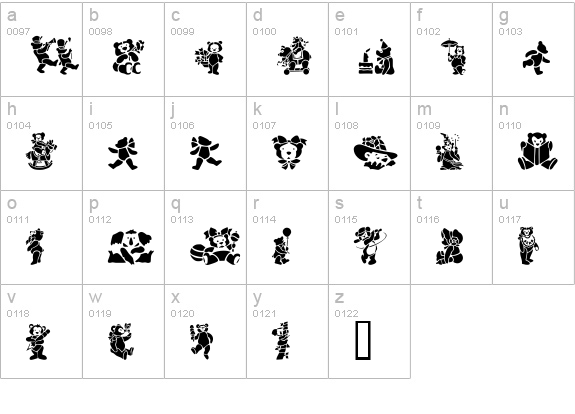
GE Silhouette Teddy Font Details
Introducing GE Silhouette Teddy font, a charming and whimsical typeface perfect for adding a touch of playfulness to your designs. This delightful font features teddy bear silhouettes scattered throughout, creating a unique and adorable look. With its friendly and inviting style, GE Silhouette Teddy font is sure to bring a smile to anyone who sees it. Best of all, GE Silhouette Teddy font is available for free download at FontsMarket.com. This means you can easily add this delightful font to your collection without any cost. Whether you're working on a children's book, a greeting card, or a fun poster, GE Silhouette Teddy font is the perfect choice for adding a touch of sweetness and whimsy to your projects. Download it today and let your creativity soar with this charming and lovable font.